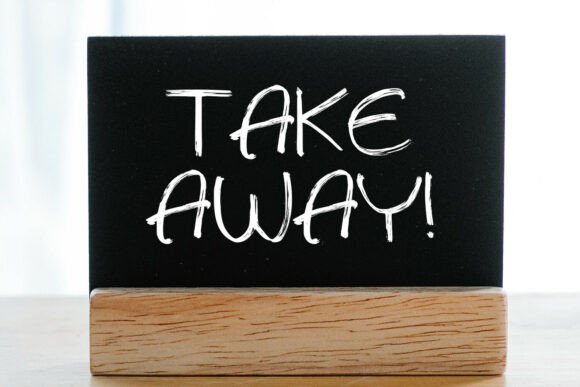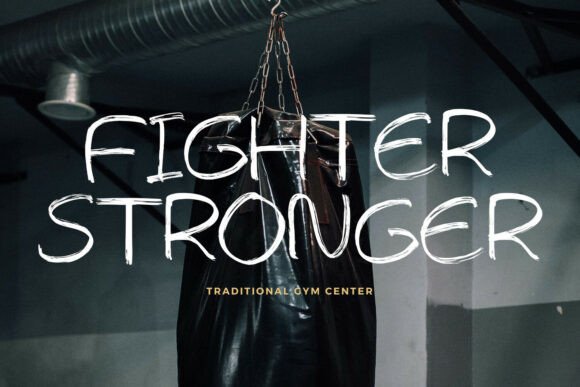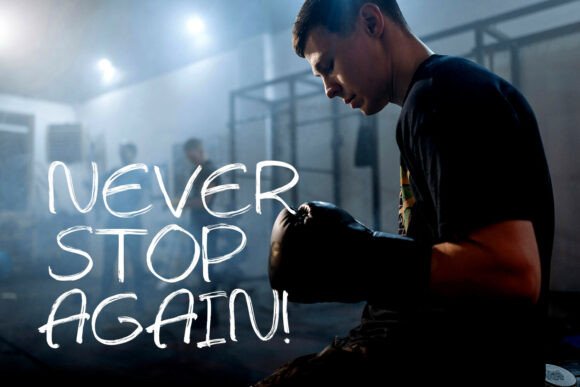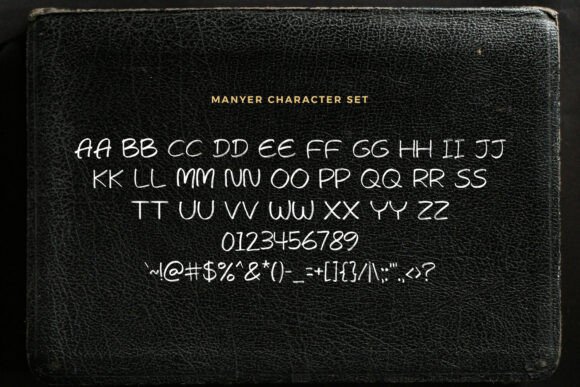
Introduction to Manyer Font
Manyer is a handmade brush font crafted with bold strokes and authentic hand-painted character.
Inspired by the natural movement of brush lettering, this font combines organic texture with expressive energy Its slightly rough edges and dynamic flow create a strong artistic personality while maintaining good readability.
Key Features of Manyer Font
Why Choose Manyer Font?
Manyer Font offers exceptional quality and versatility, making it a valuable addition to your design toolkit. Whether you’re creating for personal projects or commercial use, Manyer Font delivers professional results.